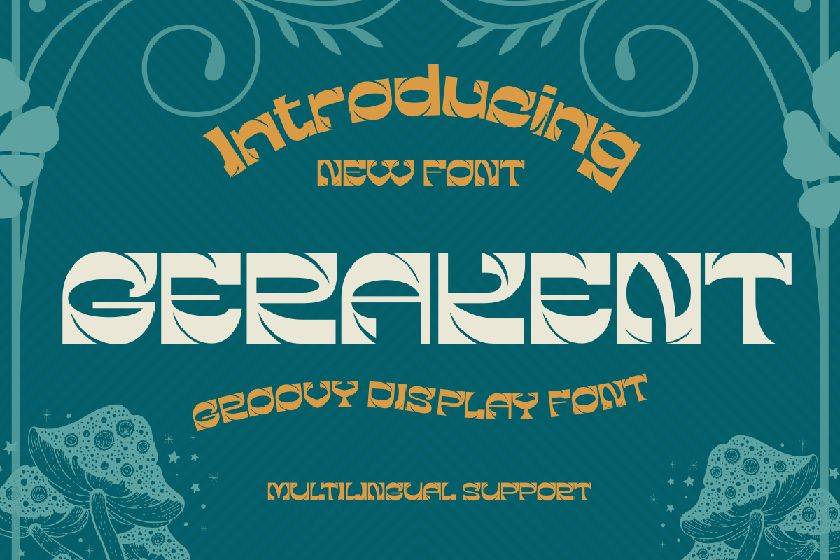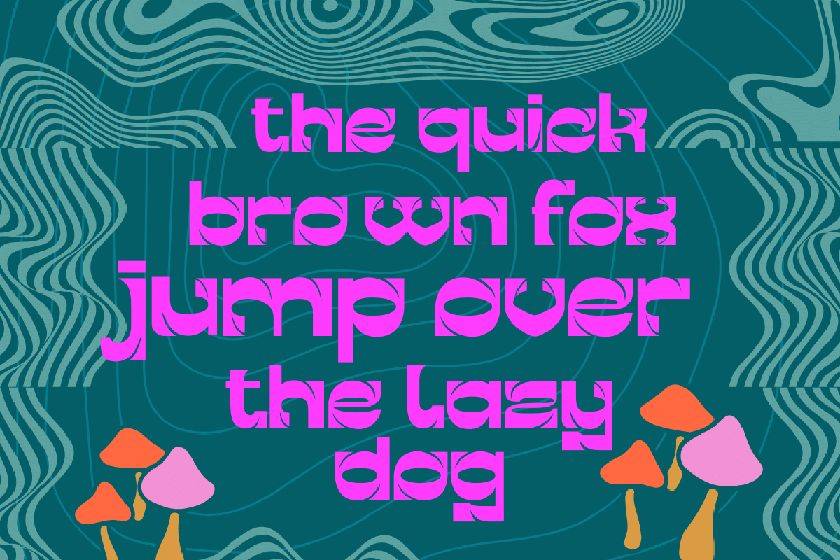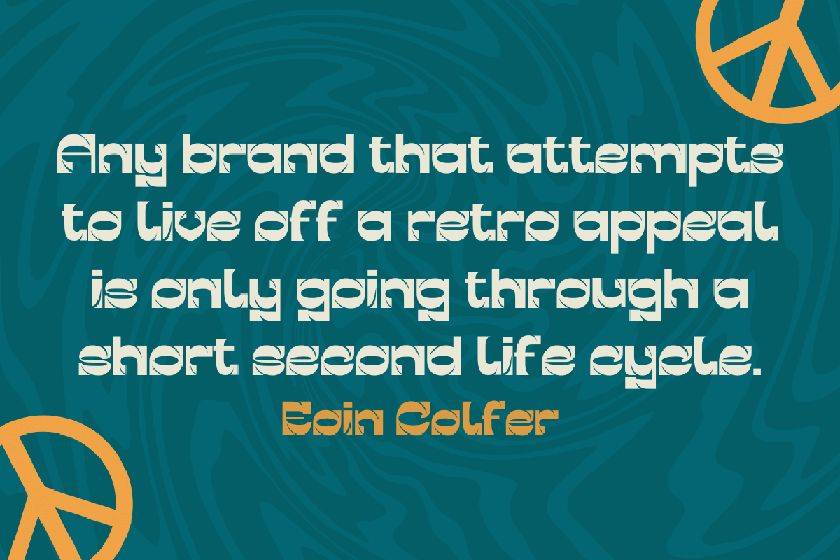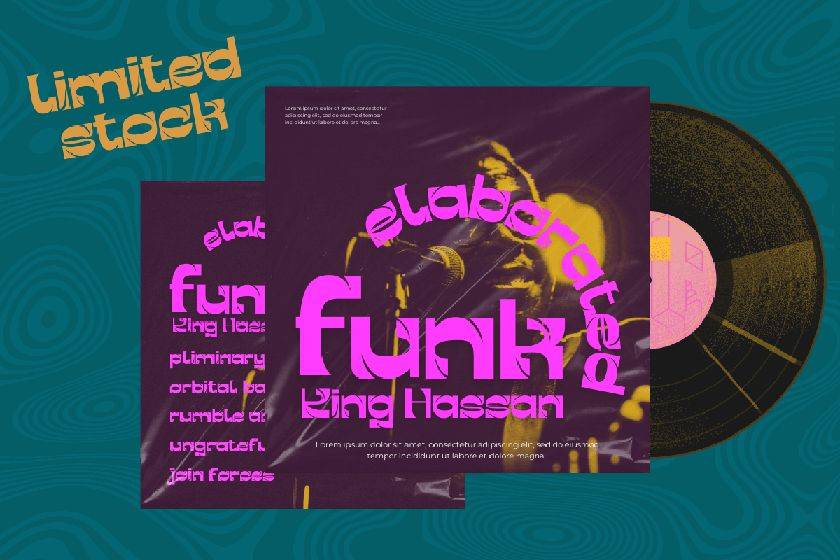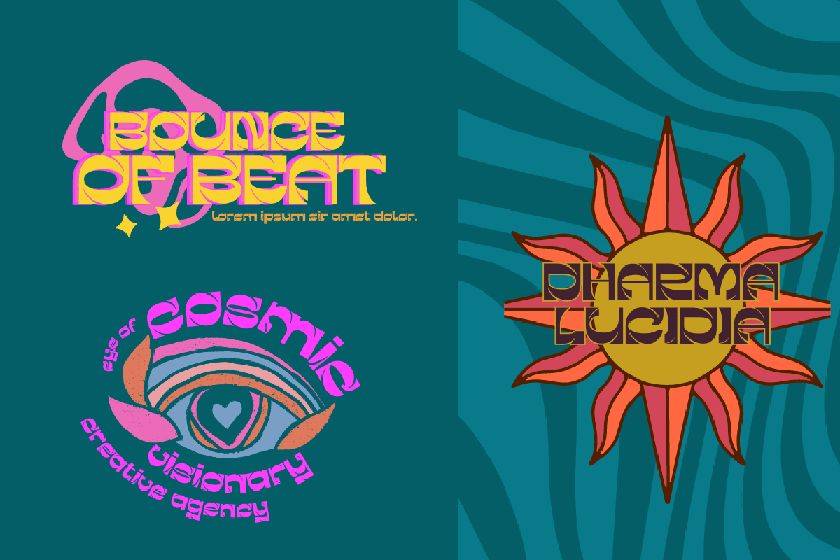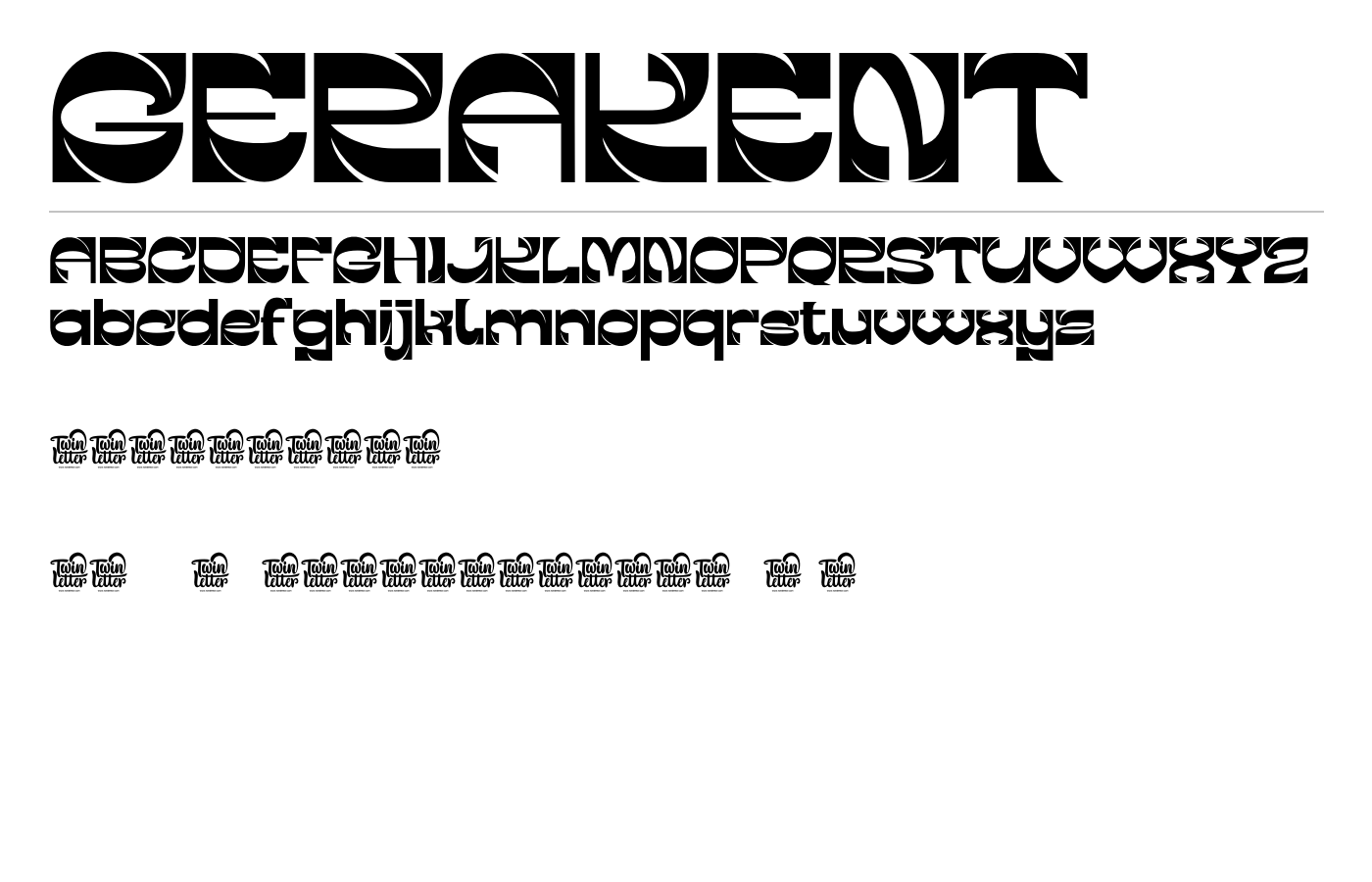
Gerakent is a bold and avant-garde sans serif font characterized by its geometric shapes and heavy contrast between thick and thin strokes. Its unique letterforms feature sharp angles and creative cutouts, giving it a modern, artistic, and somewhat futuristic feel. Ideal for striking headlines, logos, or display use, Gerakent commands attention and adds a strong, contemporary personality to branding and editorial design.
Gerakent Font
About Gerakent Font